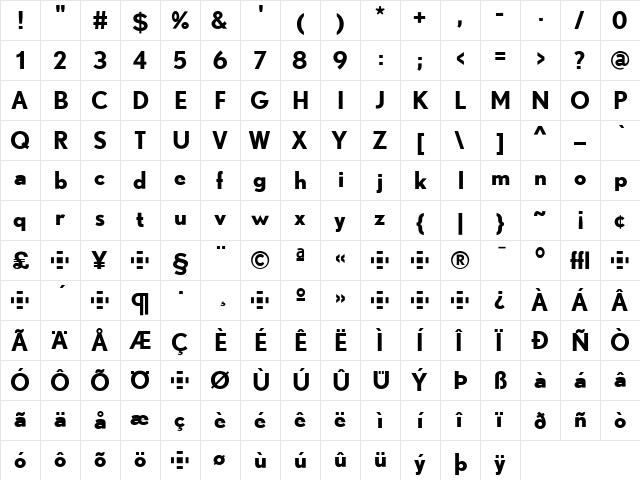
Nobel Bold
Design Context for Nobel Typeface
Nobel is a composed and adaptable typeface that performs quietly and consistently across a wide range of design contexts. Its bold stroke weight gives it real presence on the page.